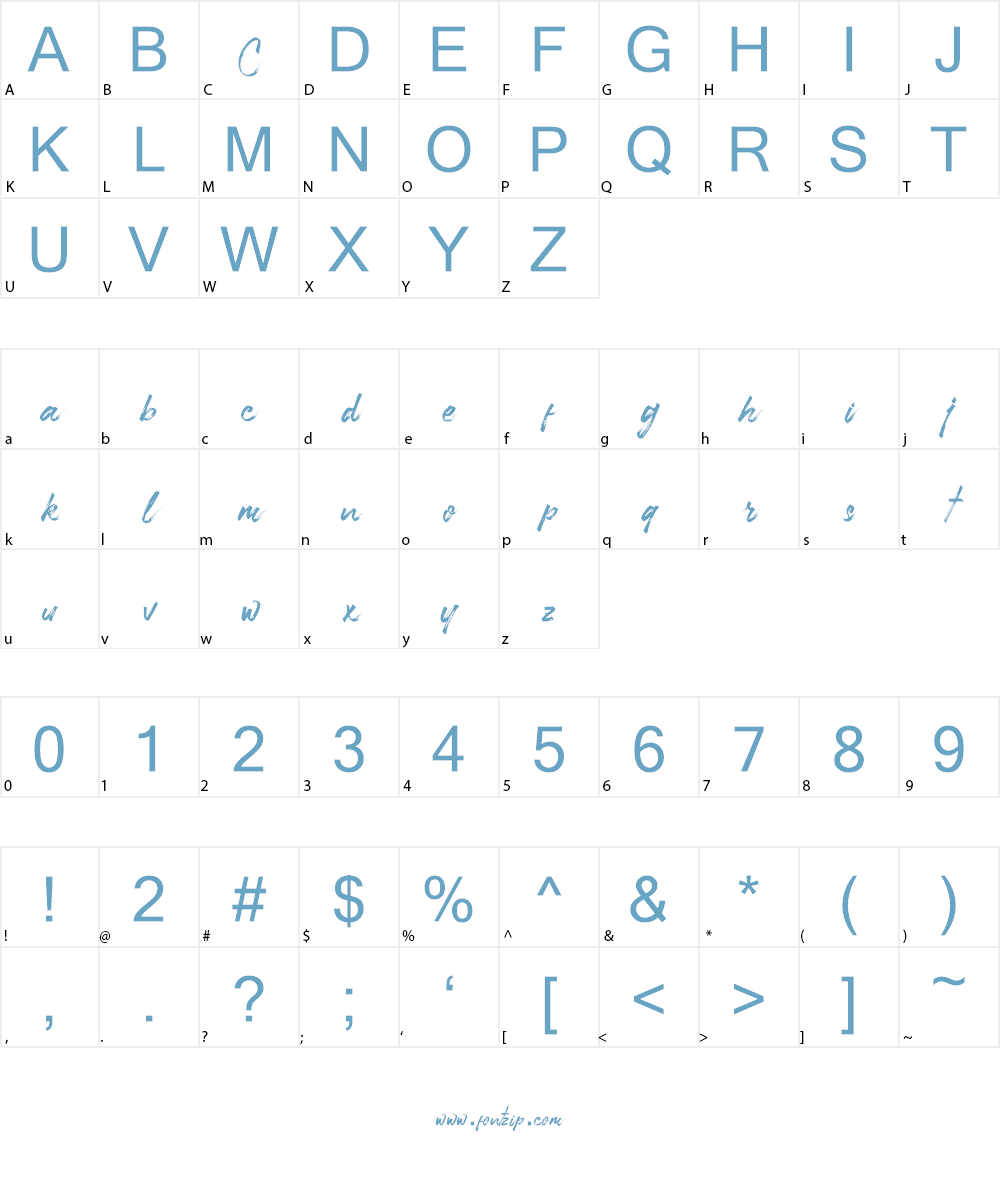
A calligraphy dry brush font that you'll never ignore. Implementation of almost-empty brush pen and super fast stroke to get those natural texture of hand lettering impression. Some tips : it kinda perfect for logo, branding, a punchline words in a poster, quote, and any kind of situation that need an 'in your face' word.